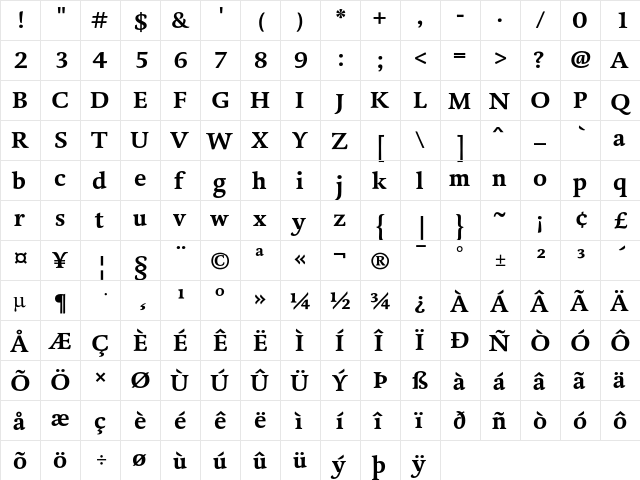
DTL Dorian T Bold
Design Context for DTL Dorian Typeface
DTL Dorian takes a measured approach to typography — its balanced proportions and neutral character make it a reliable workhorse for both digital and print work. Its bold stroke weight gives it real presence on the page.